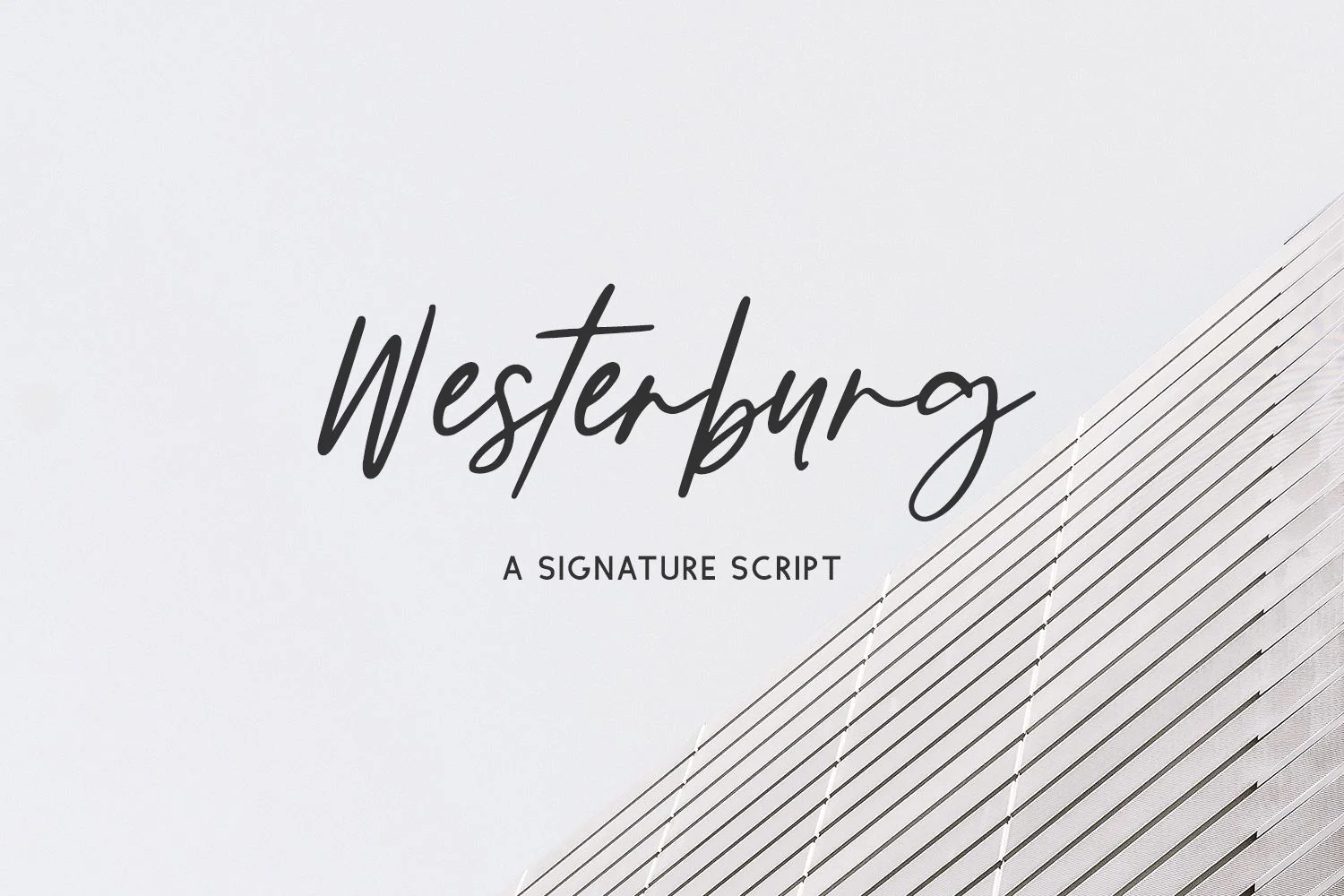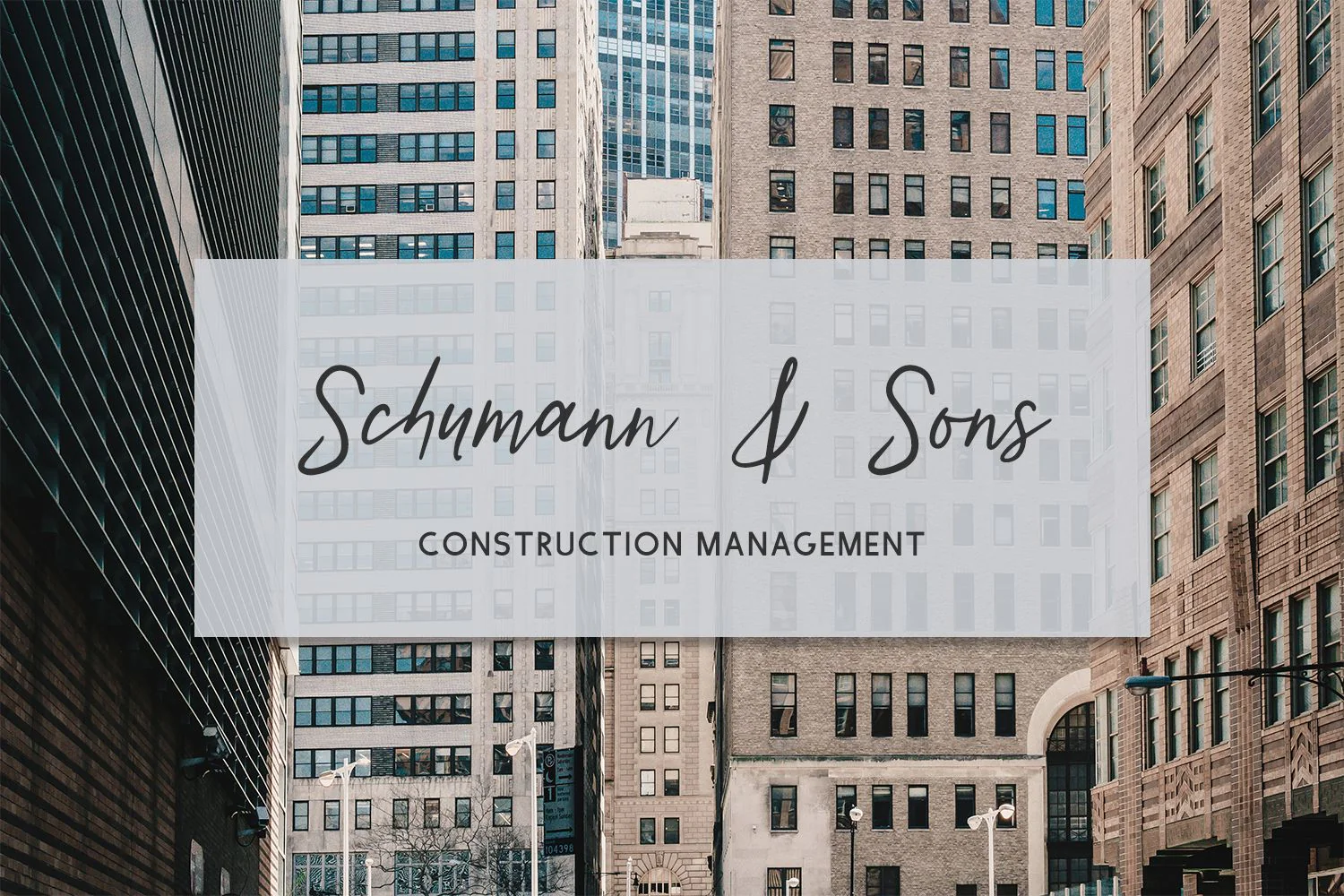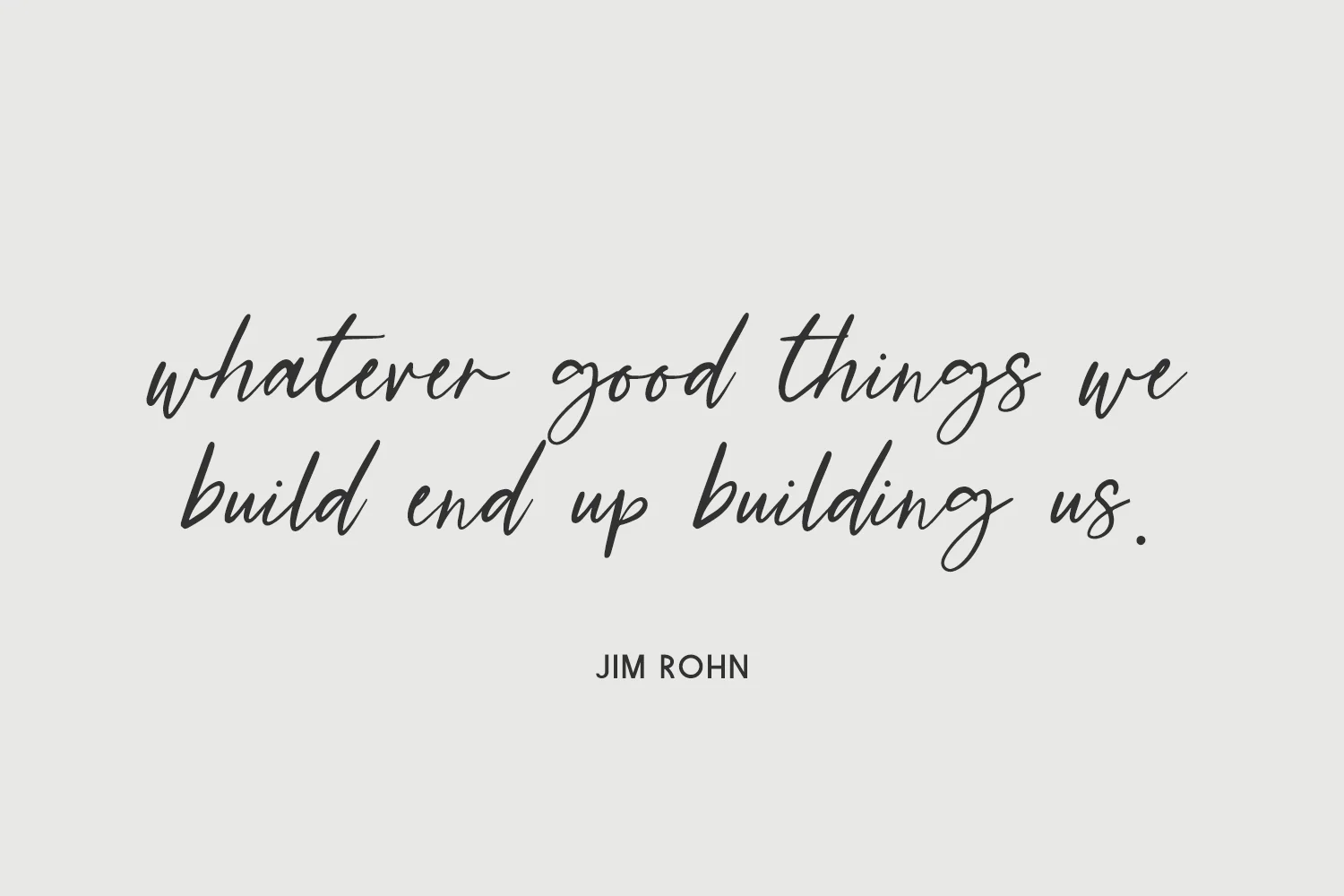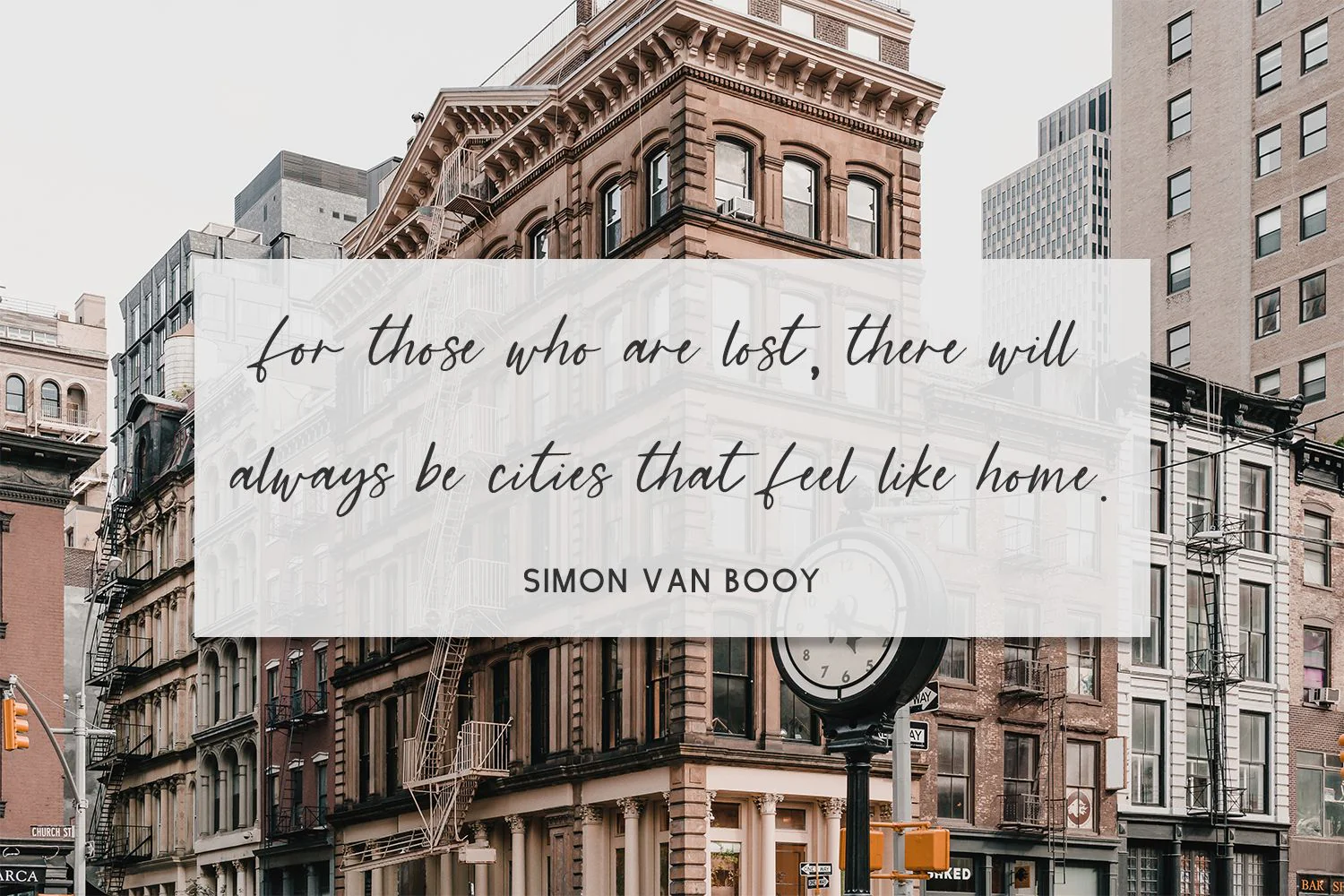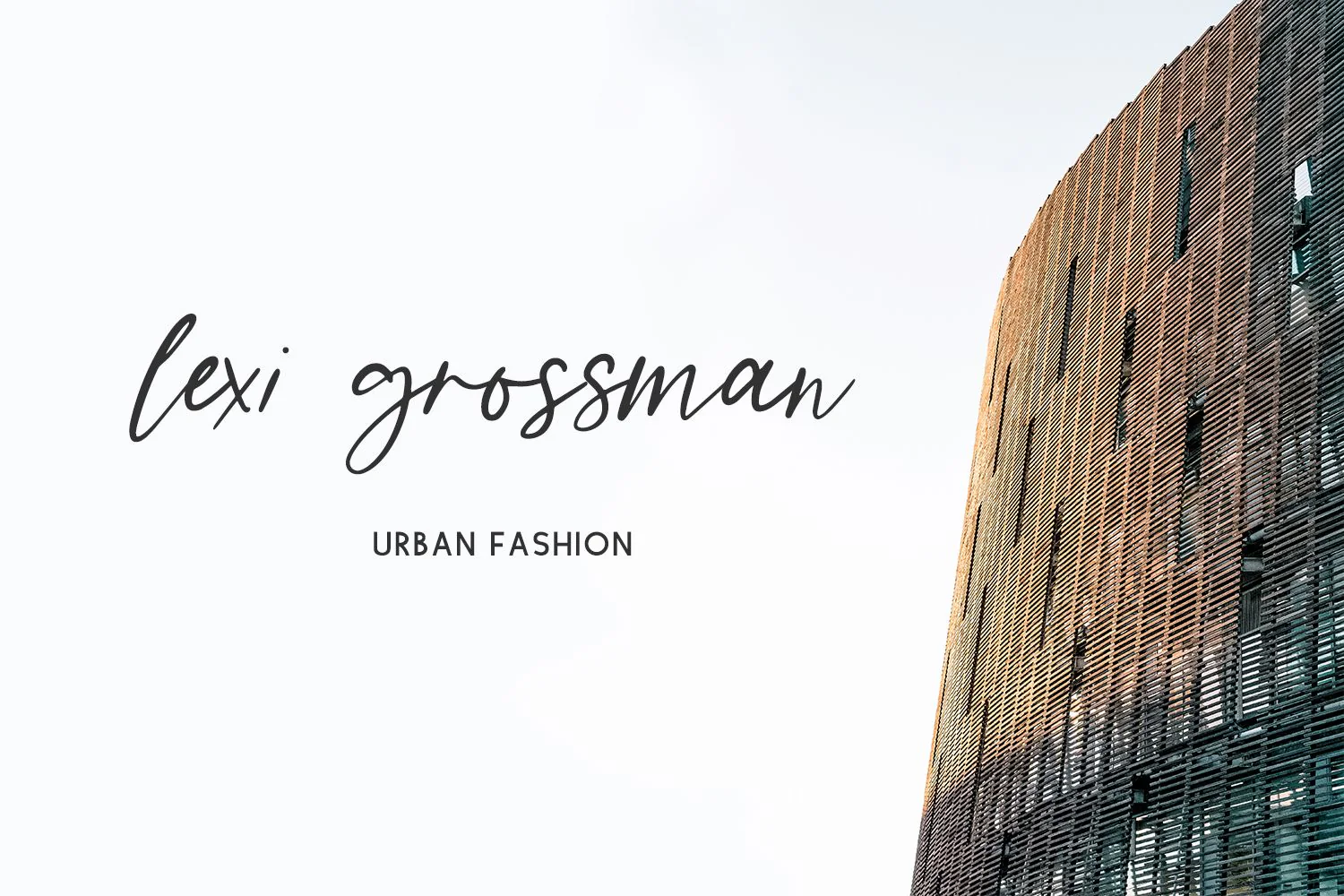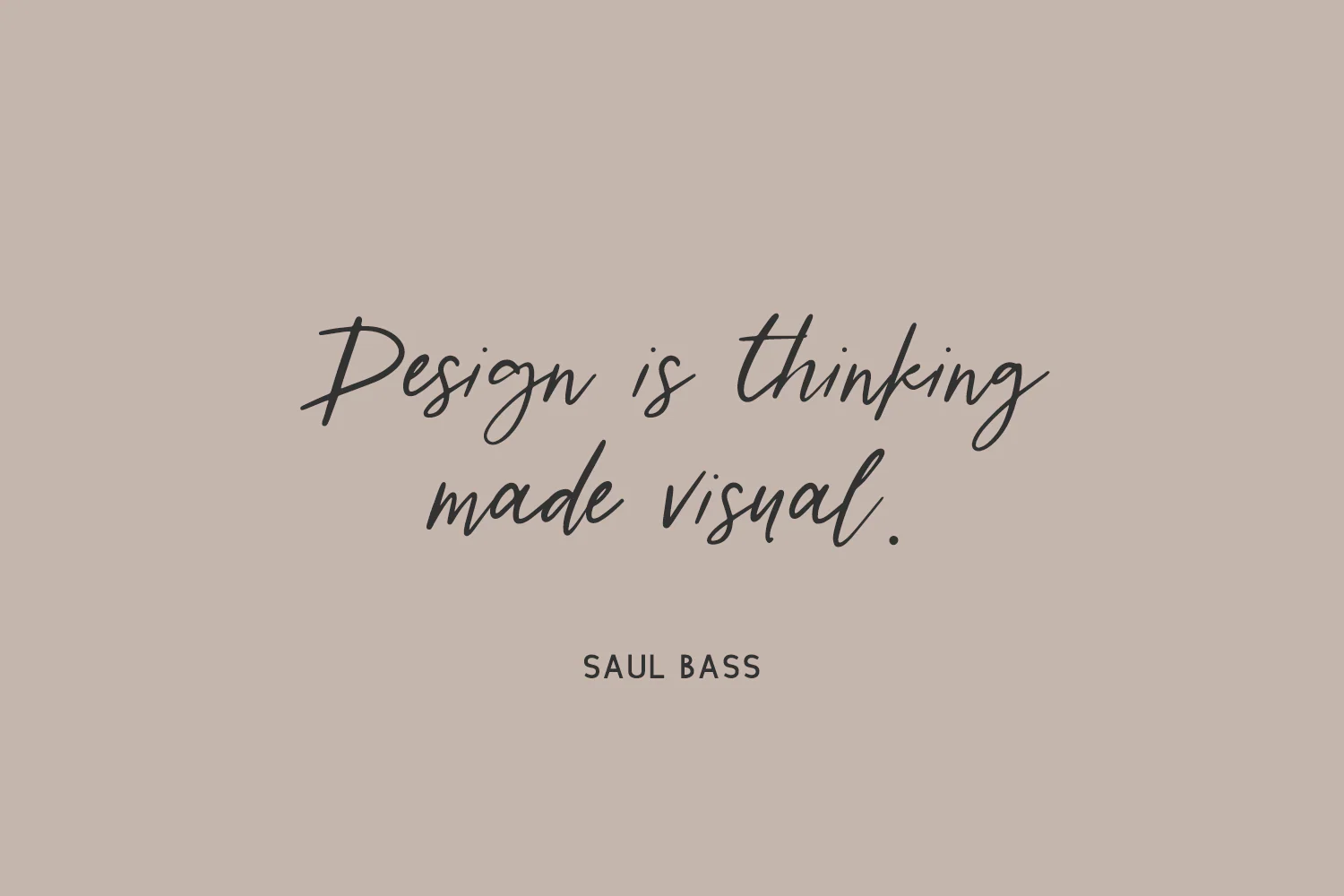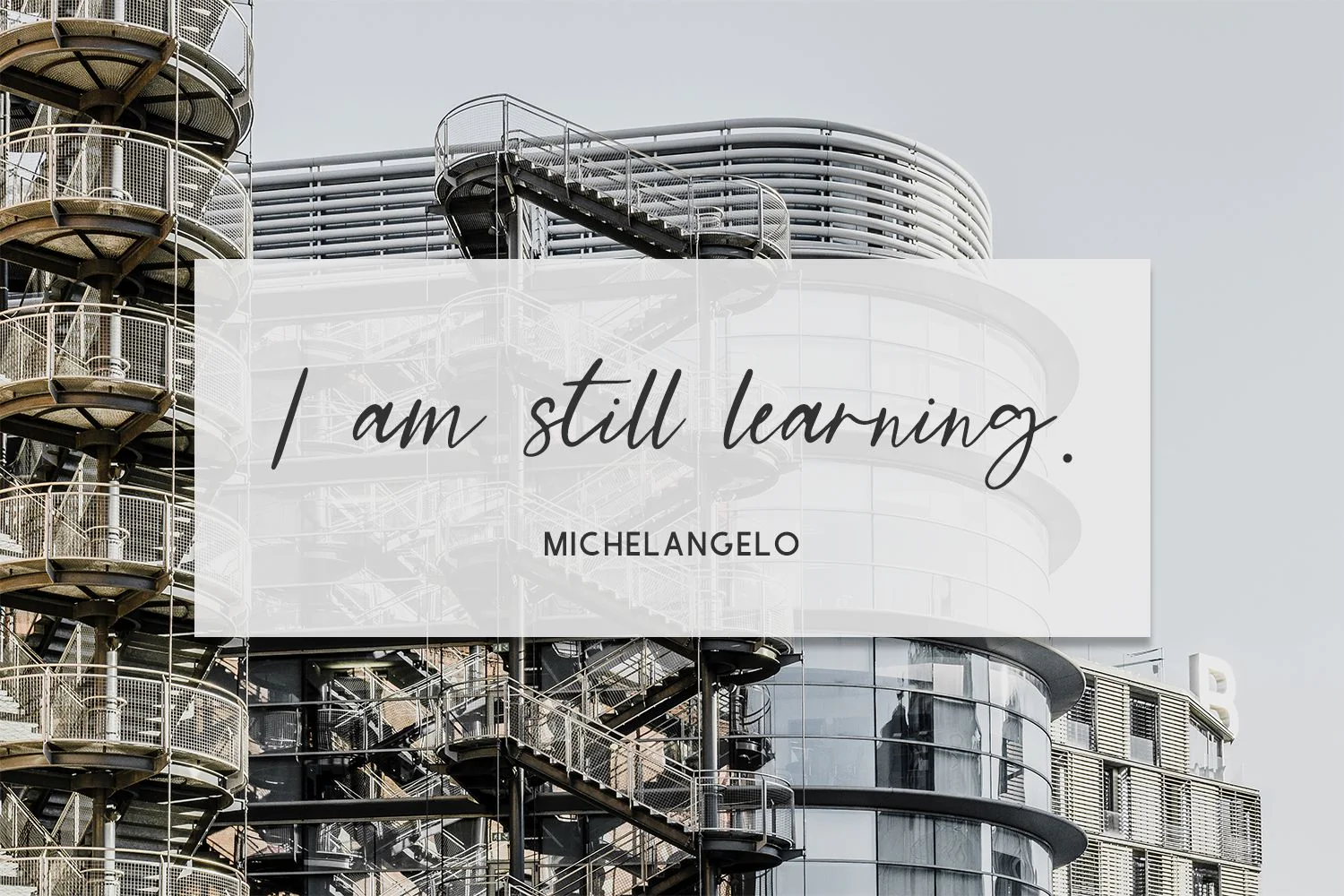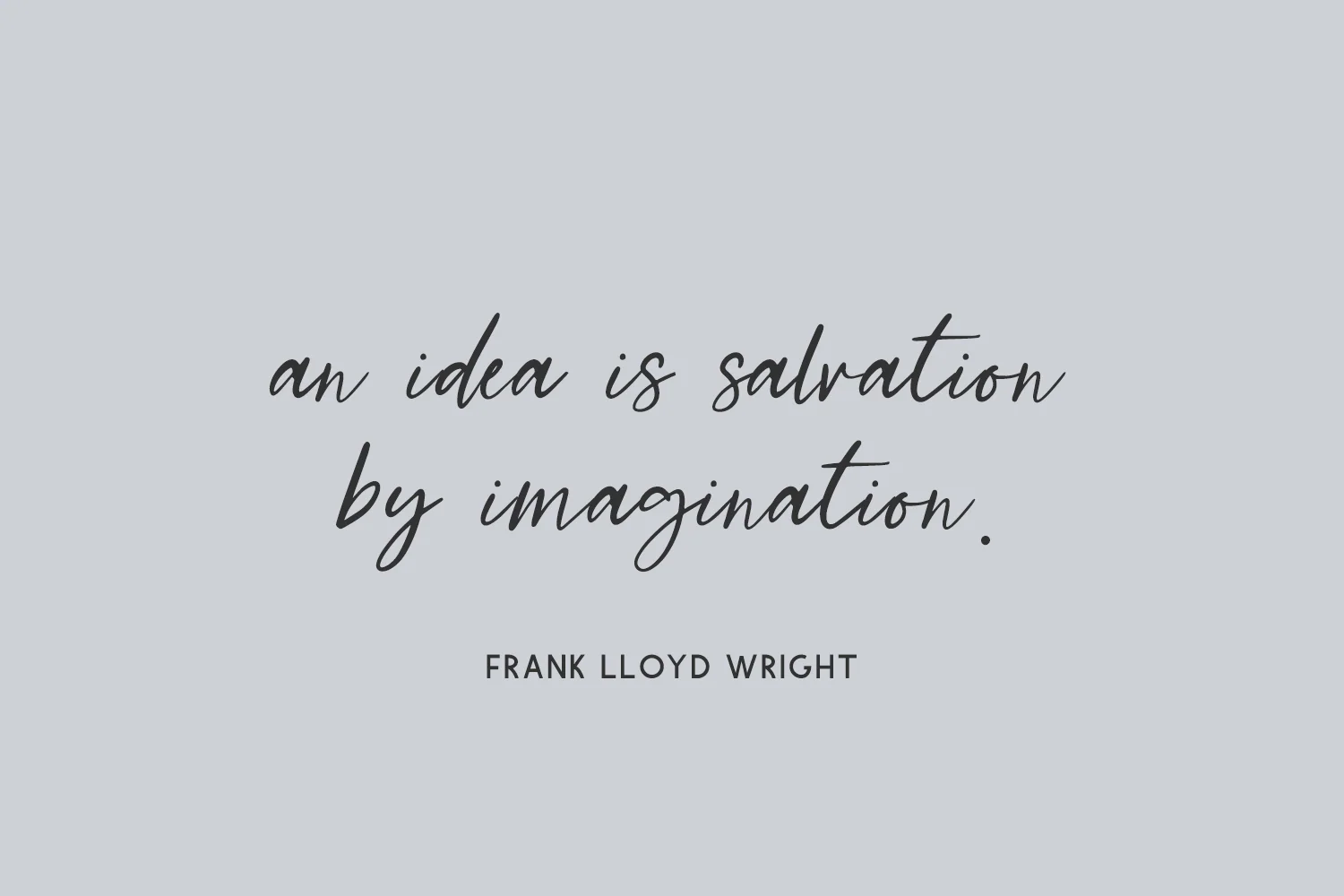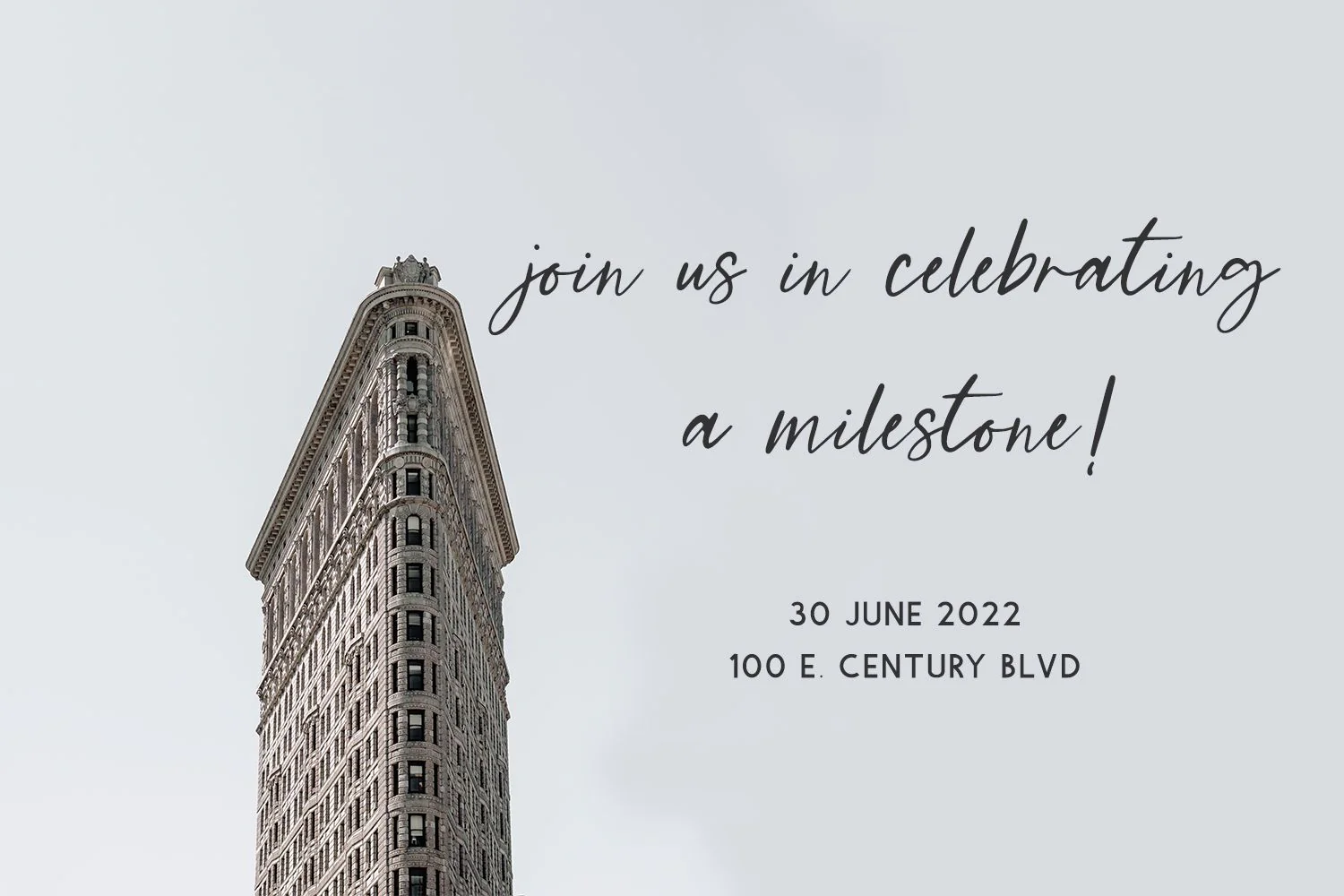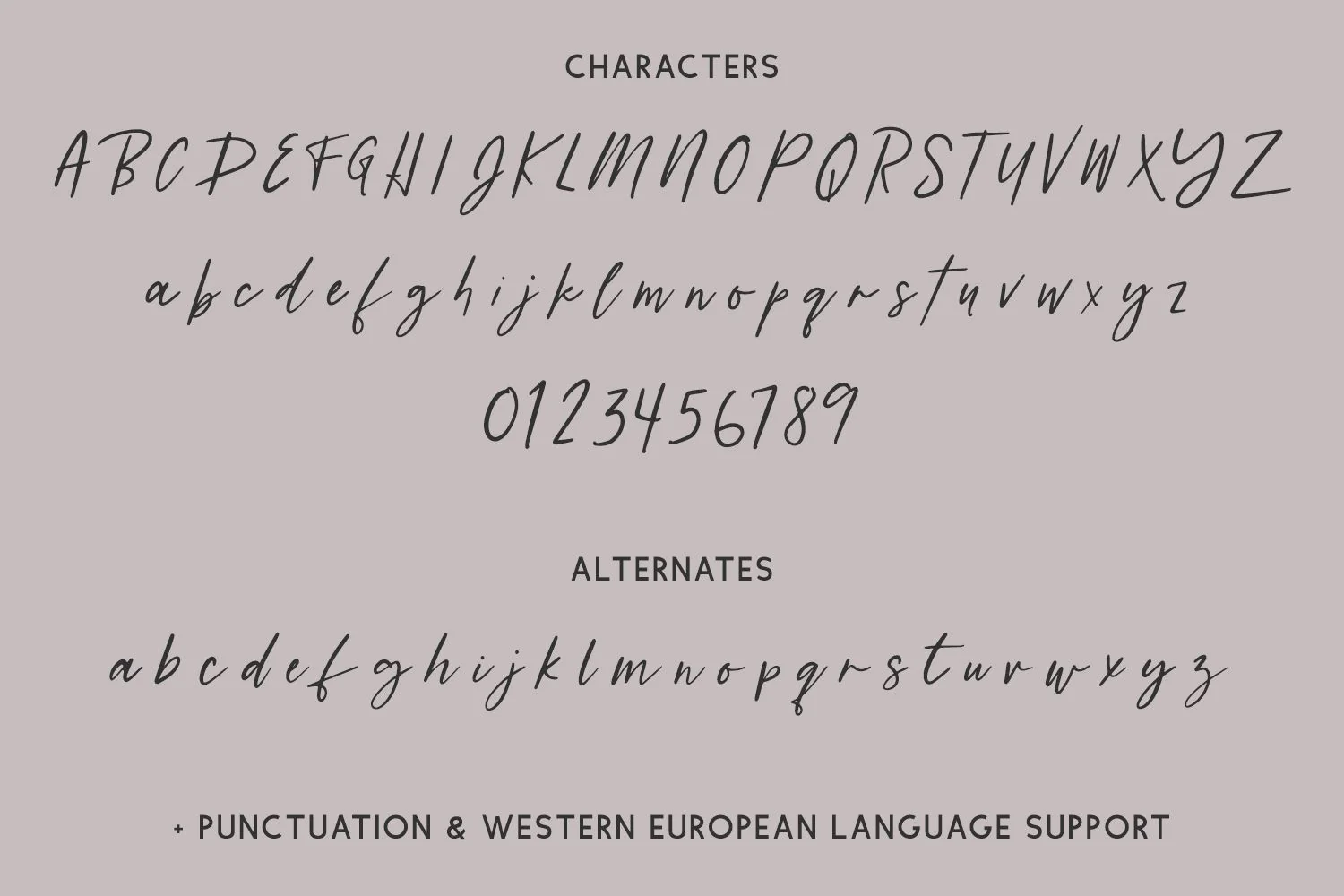
Westerburg Script Font
Introducing Westerburg Script, a modern signature script. This script includes a full set of lowercase alternates to enhance the handwritten appeal.
Westerburg Script is best for:
- logos + branding for gender-neutral applications
- website design + website accents - think design blogs, travel blogs, fashion blogs, & more
- clean print design, like magazines + flyers
- header elements that need handwritten touch
Westerburg Script includes:
- 26 alternates
Introducing Westerburg Script, a modern signature script. This script includes a full set of lowercase alternates to enhance the handwritten appeal.
Westerburg Script is best for:
- logos + branding for gender-neutral applications
- website design + website accents - think design blogs, travel blogs, fashion blogs, & more
- clean print design, like magazines + flyers
- header elements that need handwritten touch
Westerburg Script includes:
- 26 alternates